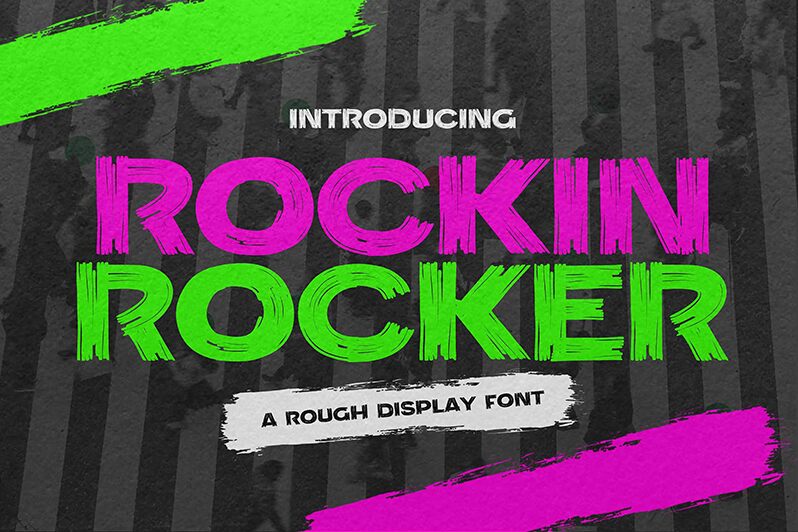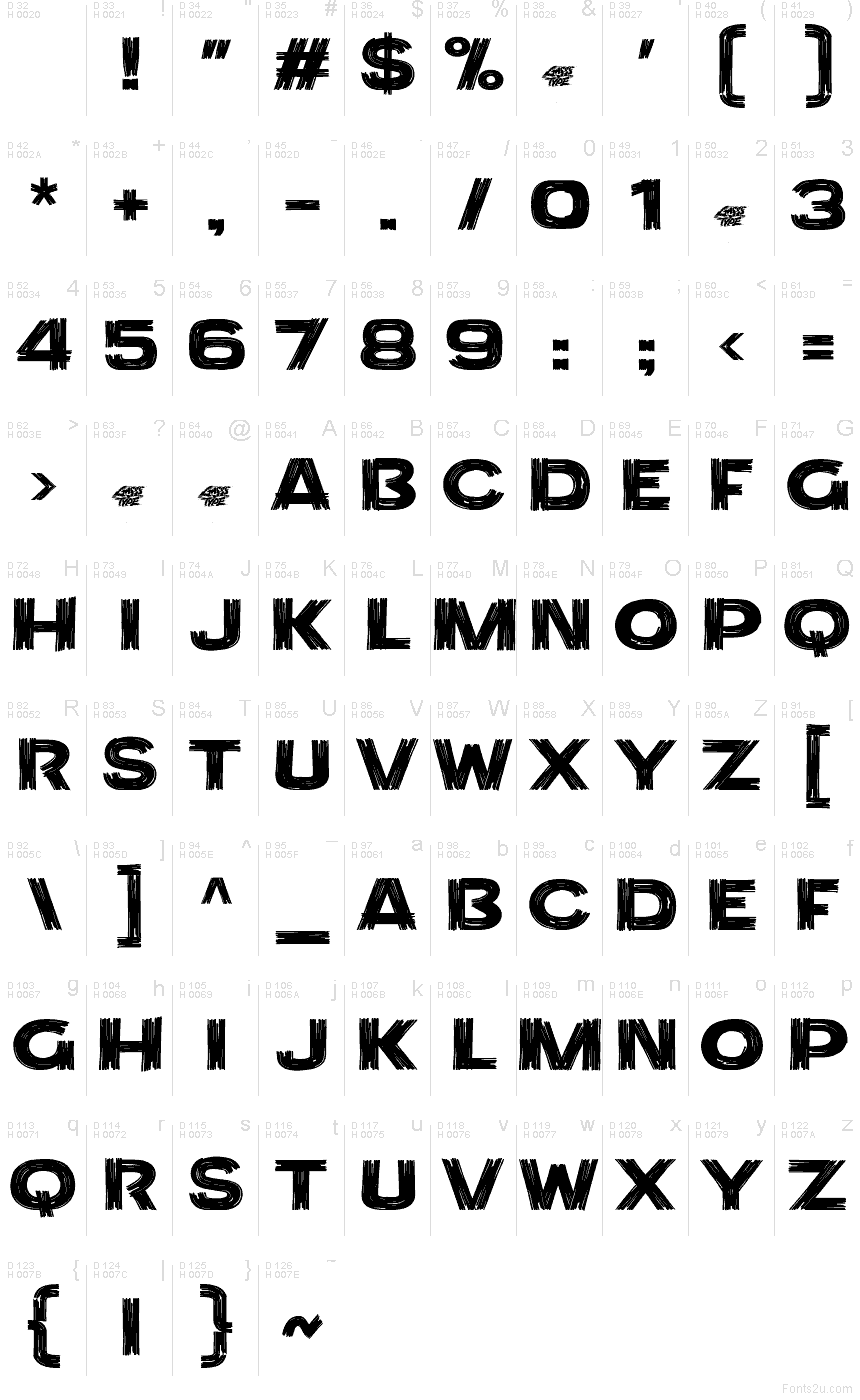
Rockin Rocker
Rockin Rocker by Gassstype Studio is a free rough brush caps font with a loud rock-poster attitude. The letters look slashed and overpainted, with heavy dark shapes broken by scratchy streaks that make the whole font feel fast, raw, and a little noisy in a good way.
It suits gig flyers, album art, festival posters, merch graphics, and title cards where the free font can carry short words with real grit. Use it for cover lines, band names, bold openers, or punchy monograms when you want the caps to feel hand-hit rather than neatly drawn.